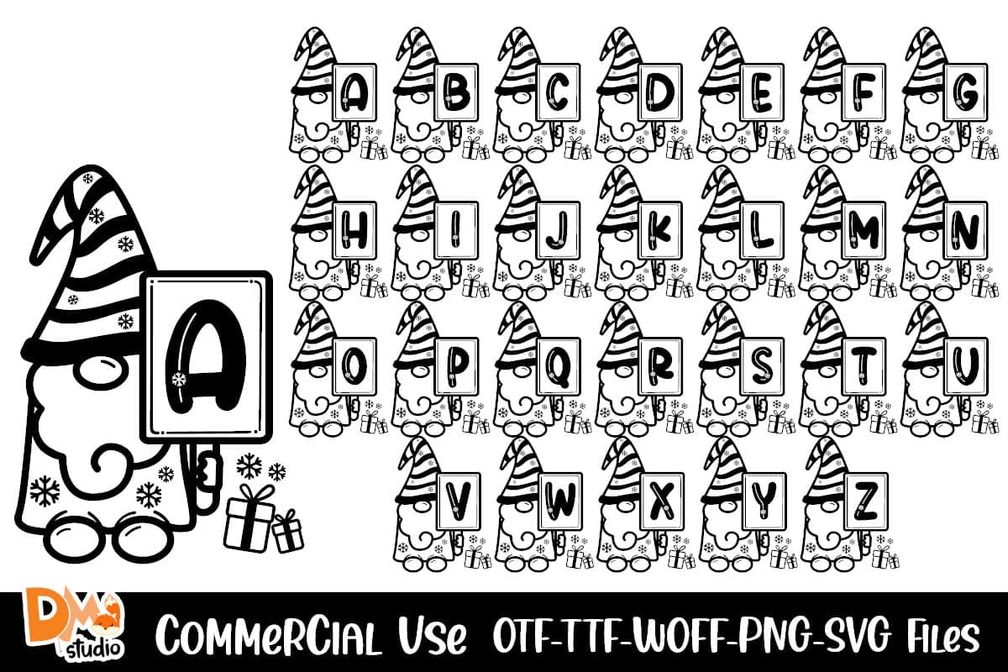
Monogram Winter Gnome Font
The Monogram Winter Gnome Font is a whimsical and festive typeface that combines the charm of winter and the playfulness of adorable gnomes. With its unique monogram style, this font is perfect for adding a touch of holiday magic to your projects, such as greeting cards, invitations, monogram logos, and seasonal crafts.
- Winter Gnome Theme: The font features characters and elements inspired by winter and cute gnomes, creating a magical and seasonal atmosphere.
- Monogram Design: Specifically crafted for monogram use, the font allows you to easily create personalized and festive monograms for a variety of applications.
The Monogram Winter Gnome Font is versatile and suitable for a range of design projects, including:
- Greeting Cards: Create charming and personalized holiday cards with delightful gnome-themed monograms.
- Invitations: Add a touch of whimsy to winter event invitations, whether for weddings, parties, or seasonal gatherings.
- Logos: Craft unique monogram logos for businesses or events with a festive and distinctive flair.
- Craft Projects: Enhance seasonal craft projects, such as DIY ornaments, gift tags, and more.
Infuse your designs with the playful and festive spirit of the Monogram Winter Gnome Font. Create memorable and charming projects that capture the essence of winter and the whimsy of adorable gnomes.
- The letters are exclusively made for our monogram fonts.